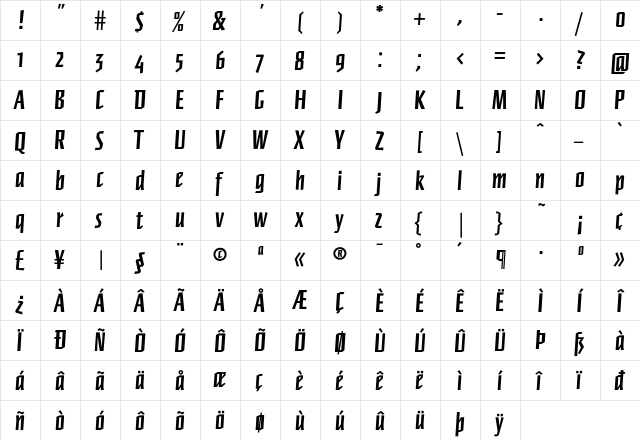
FFNewberlin-Bold Regular Font Preview
FFNewberlin-Bold Regular
FFNewberlin-Bold Regular Font Details
Design Context for FFNewberlin-Bold Typeface
FFNewberlin-Bold is a composed and adaptable typeface that performs quietly and consistently across a wide range of design contexts. Its bold stroke weight gives it real presence on the page.